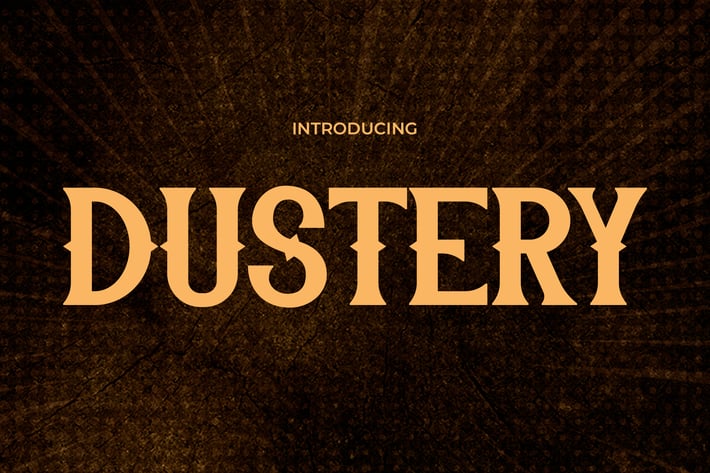
Dustery Modern Elegance with a Retro Western Font
Dustery
DUSTERY is a retro-inspired vintage display font designed for bold headlines and nostalgic design moments. Its expressive structure blends sharp terminals with symmetrical serifs, creating a timeless, rugged appearance ideal for commanding attention. With its bold vibe and consistent vertical proportions, Dustery delivers a cinematic, 1940s Western poster feel that works beautifully across vintage branding or editorial design. The tall uppercase set with tapered curves reinforces a structured but energetic tone—perfect for crafting standout visuals in retro-style creative projects.
Whether you're building a gritty film title, a stylized barber shop brand, or a heritage-style apparel label, Dustery delivers retro intensity with flair. This typeface evokes memories of old signage, wild west prints, and noir cinema—making it ideal for poster design, merchandise branding, editorial spreads, and themed social content. Its confident, loud character ensures your typography becomes the visual anchor of any project.
Key Features
Bold Design Built for Impact
- Strong vertical balance with tapered serifs and sharp detailing
- Commanding uppercase characters for loud display use
- Balanced width makes it readable and scalable across large formats
Tailored for Creatives
- Perfect for retro branding, Western posters, editorial layouts, movie titles
- Easily integrates with vintage textures, badge layouts, or layered typography
Enhanced Legibility and Aesthetic Impact
- High visual contrast without sacrificing clarity
- Great fit for logo lockups or striking cover designs
Basic Latin A-Z and A-z